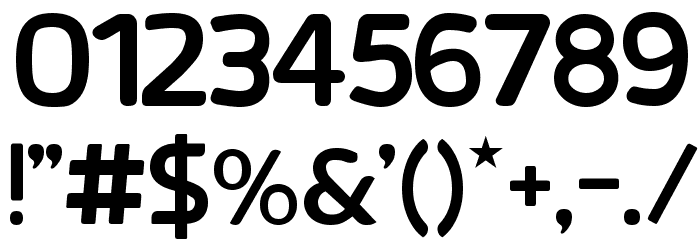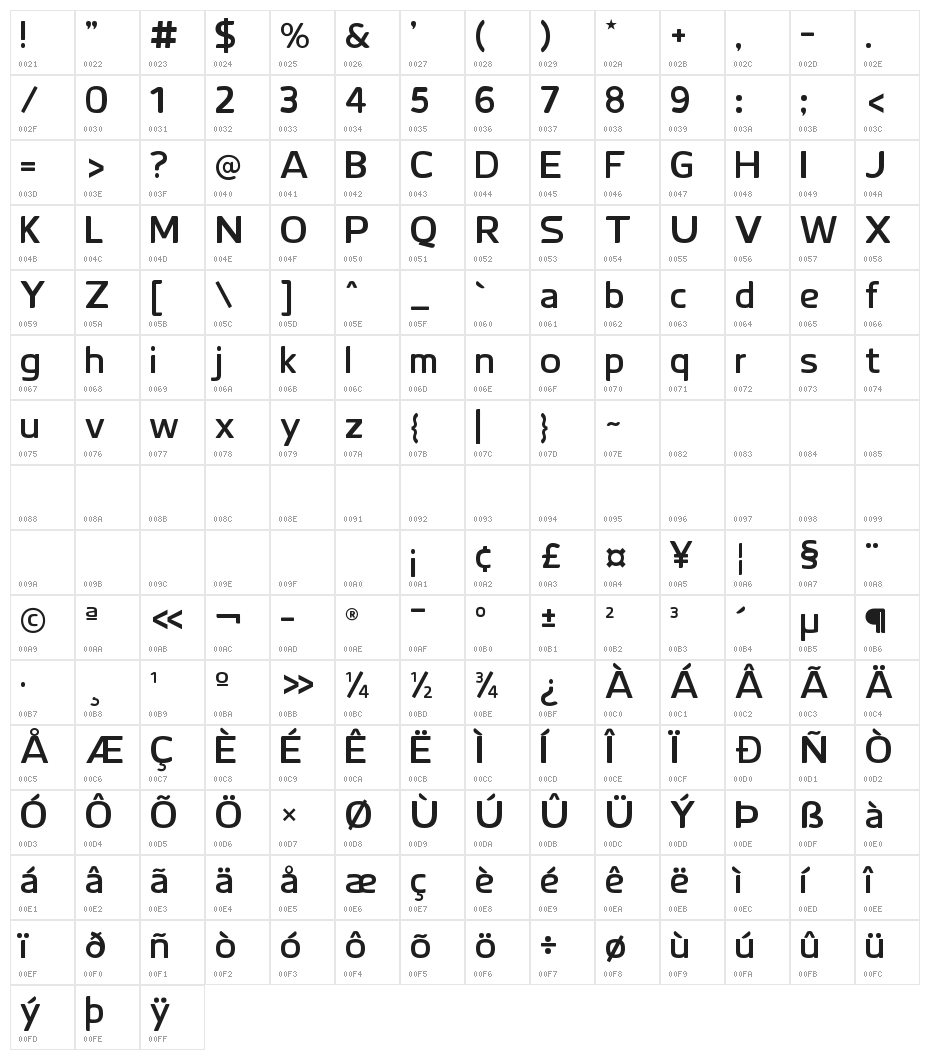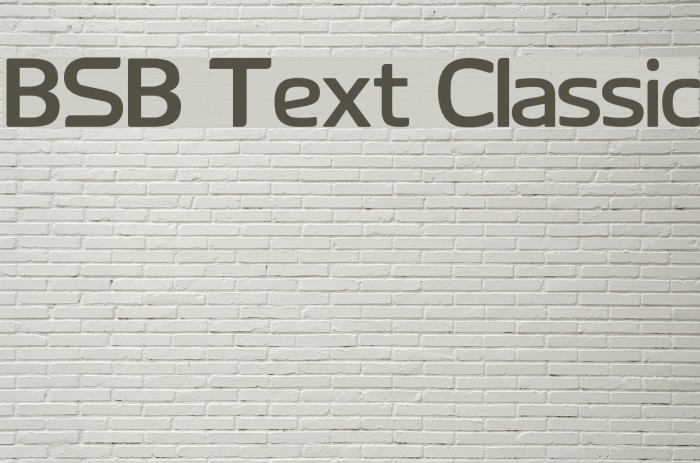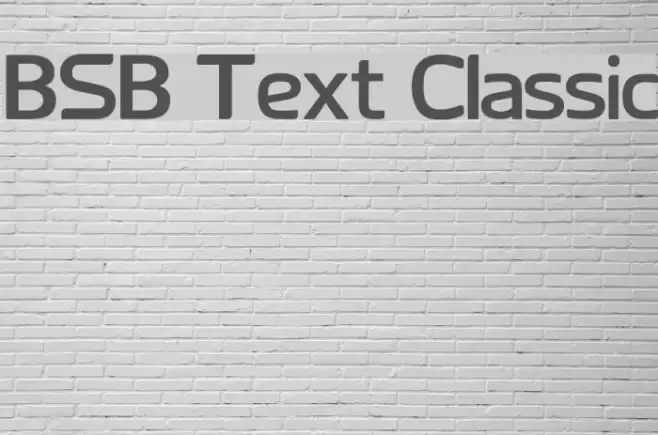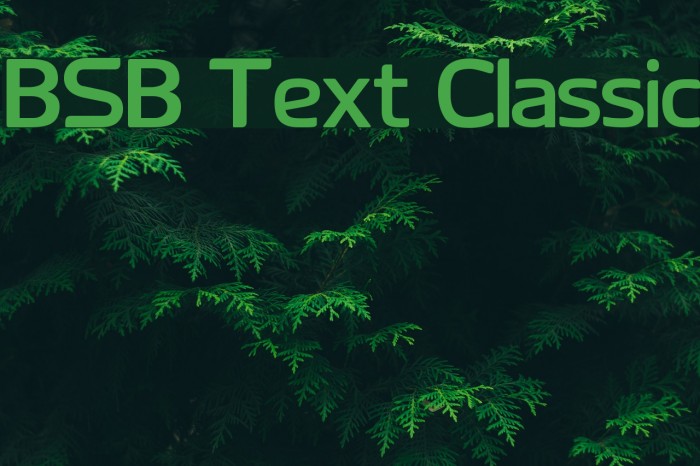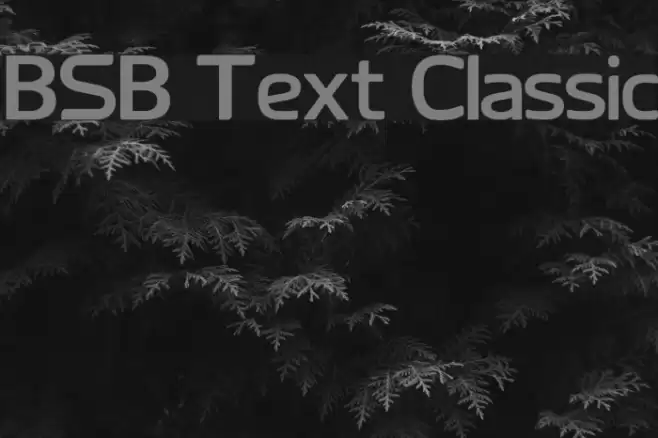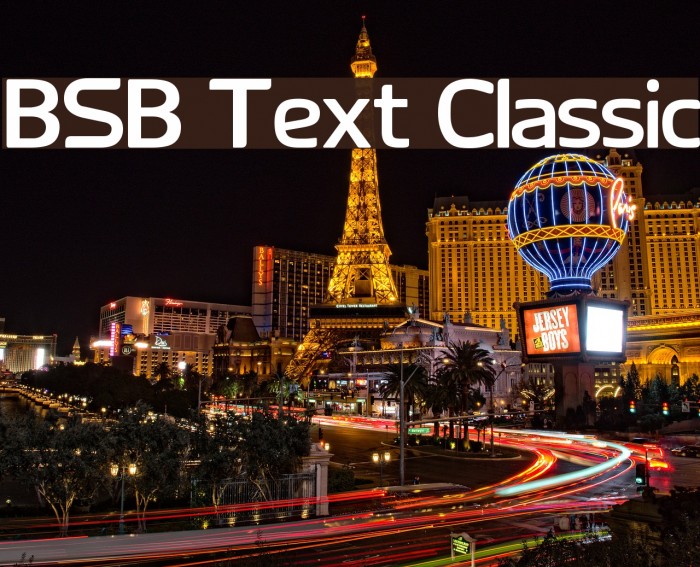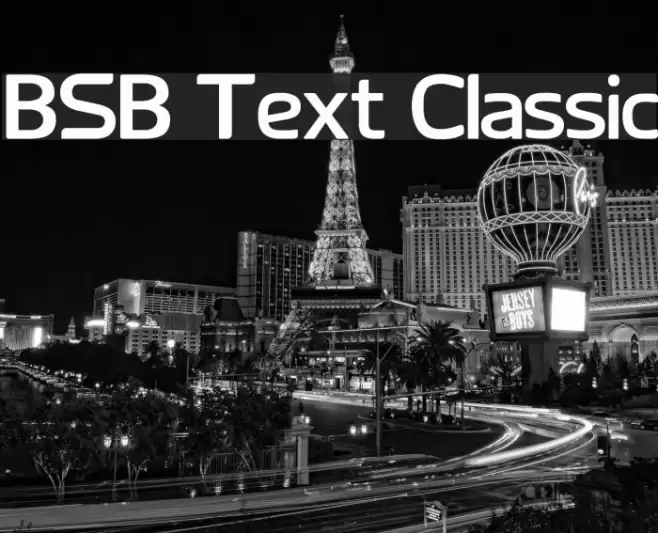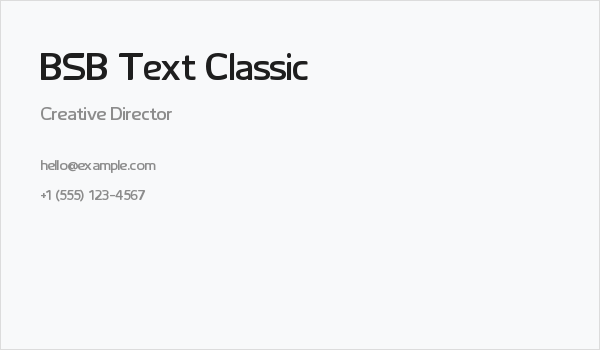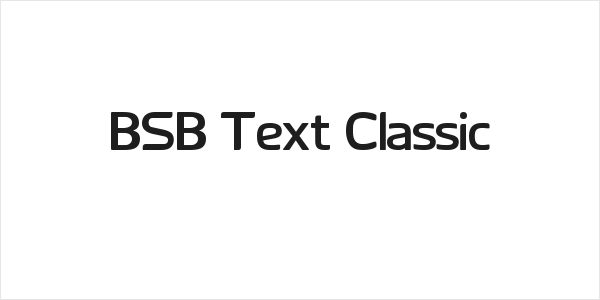
BSB Text Classic Font
BSB Text Classic Description
This font features a clean and modern sans-serif style with a uniform stroke width, giving it a sleek and professional appearance. The characters are well-proportioned, with a slightly rounded finish that adds a touch of friendliness to the overall design. The uppercase letters are bold and assertive, while the lowercase letters maintain a consistent flow, making it highly legible. The numerals are clear and distinct, ensuring readability in various contexts. Special characters are included, maintaining the same design ethos, making this font versatile for multiple applications.